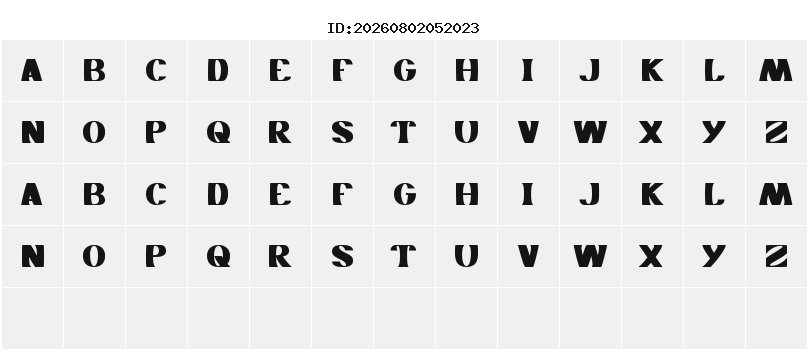
• Font Name: MONOCHROME
• Full Font Name: MONOCHROME
About MONOCHROME.ttf
MONOCHROME.ttf is a modern, elegant sans-serif font designed for ultimate readability and visual harmony. Perfect for branding, headlines, web design, and print materials.